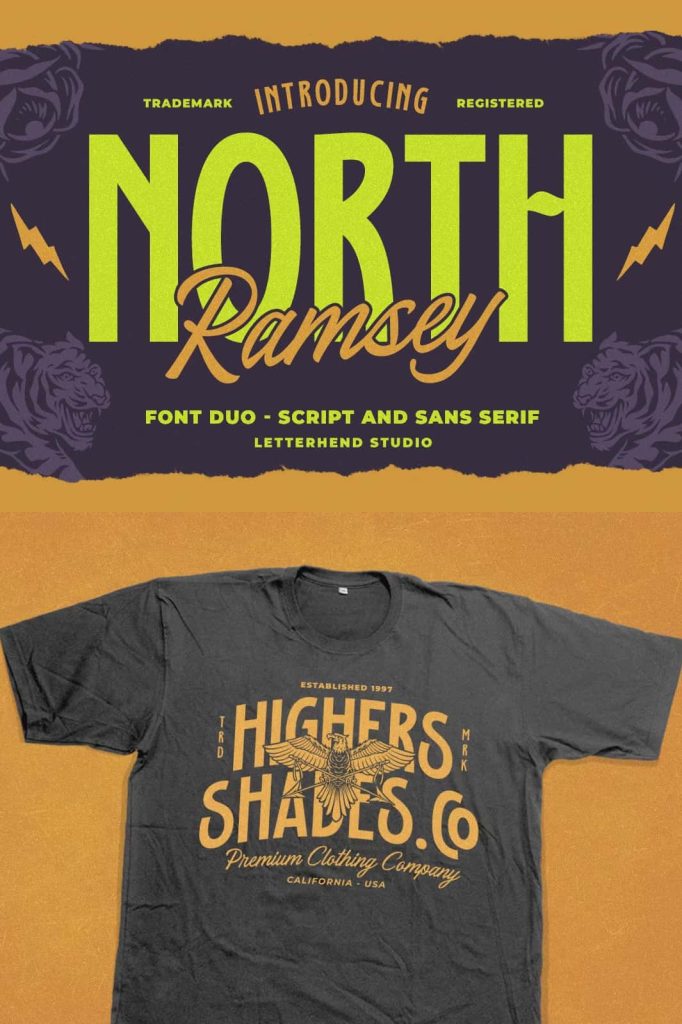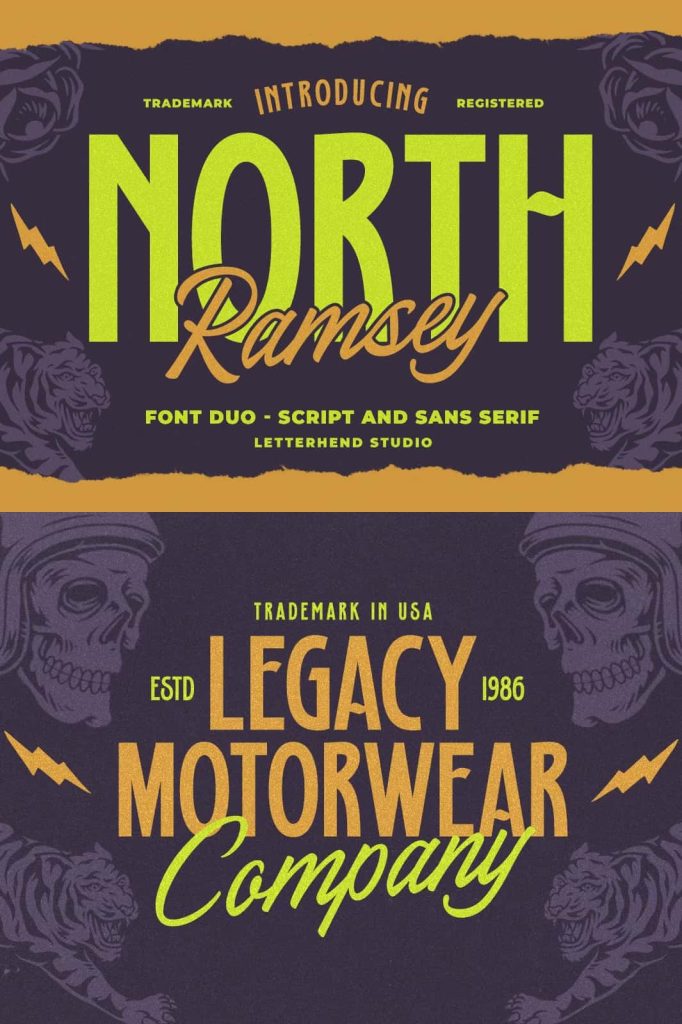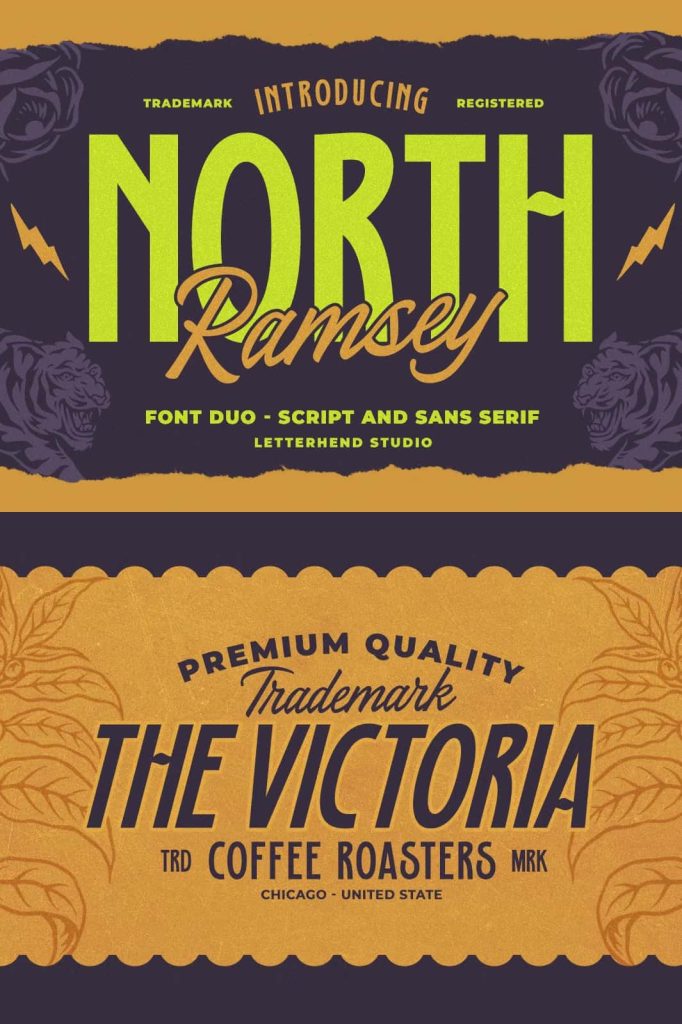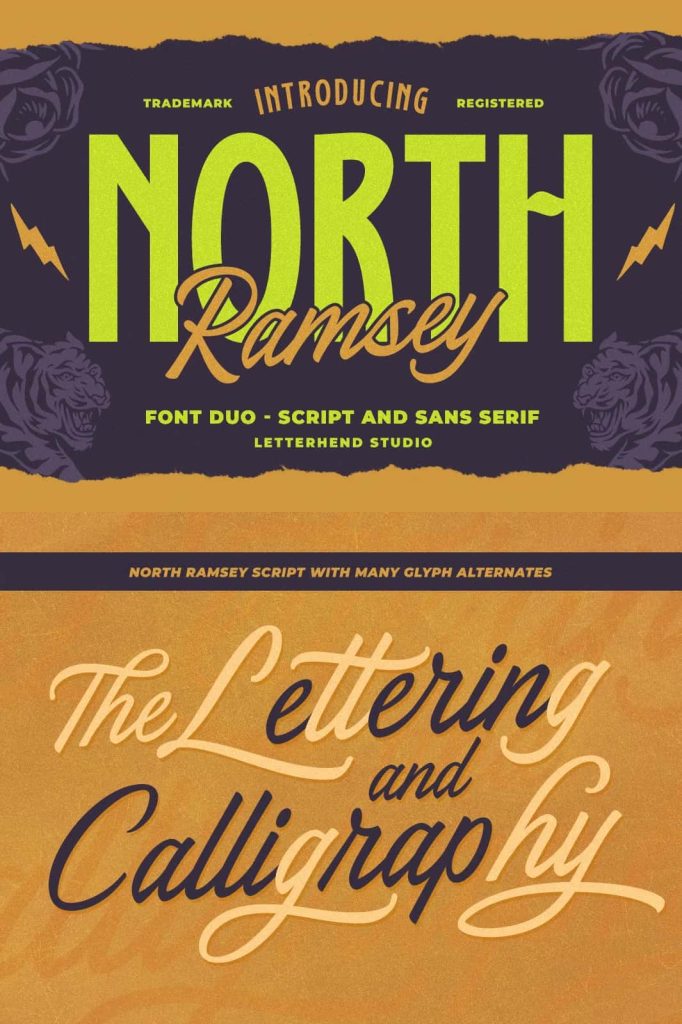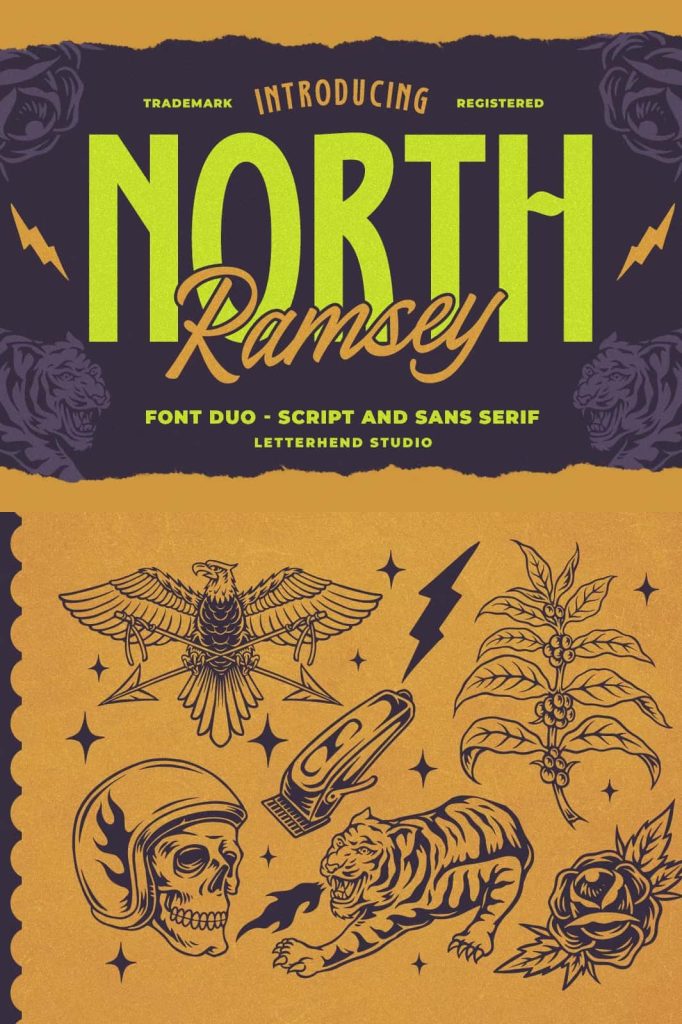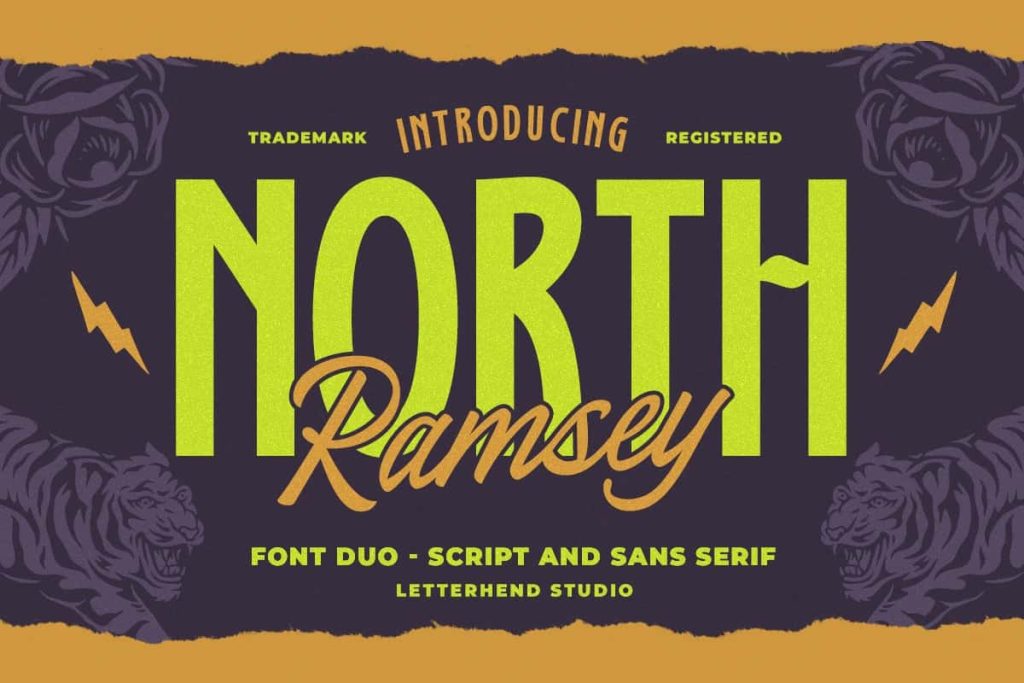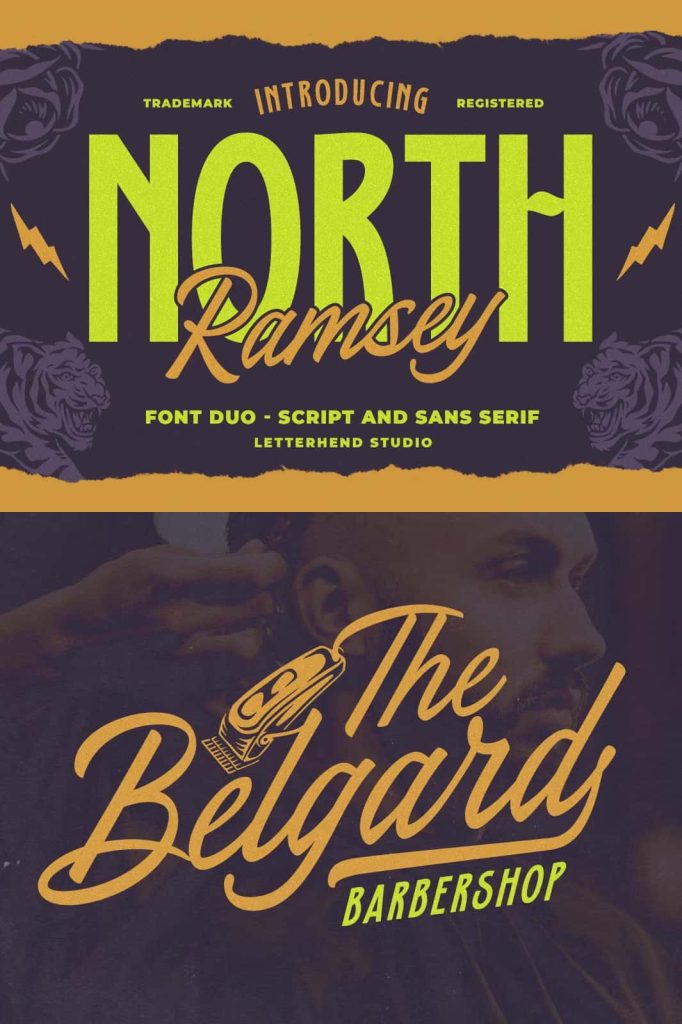
North Ramsey – Vintage Font Duo is a sans font that comes with script, both will match perfectly. The vintage feel is really perfect for you who needs a typeface for especially logotype, apparel, branding, packaging, advertising etc.